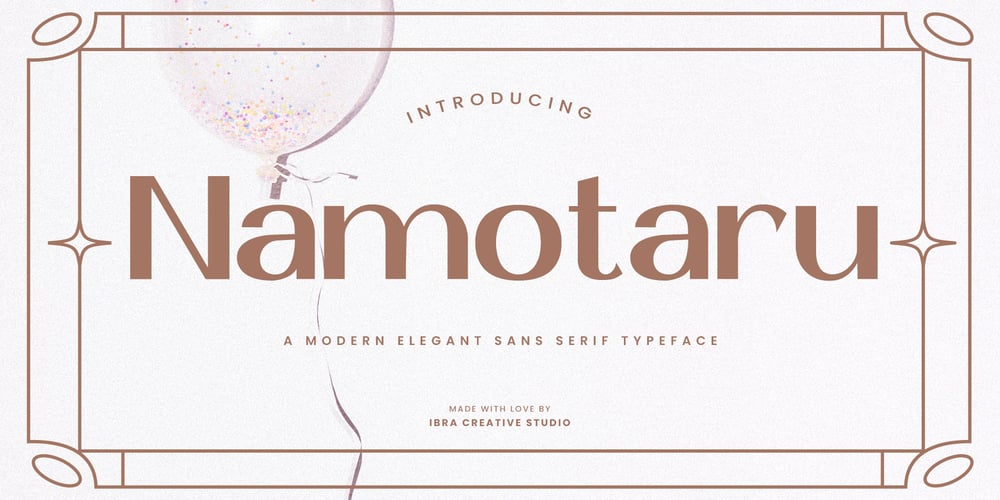
Namotaru Font Family was designed by Roisatul Azizah and published by IbraCreative. Namotaru contains 1 styles and family package options. Namotaru – A Modern Elegant Sans Serif TypefaceNamotaru, a modern elegant sans serif typeface, epitomizes sophistication with its sleek lines and refined appearance. Each letter in Namotaru exudes a sense of contemporary grace, making it ideal for projects that require a balance of professionalism and style. With its clean and minimalist design, this typeface adds a touch of refinement to any layout, whether it’s for branding, editorial design, or digital interfaces. The subtle curves and precise geometric shapes of Namotaru create a harmonious visual rhythm, ensuring readability and visual appeal in equal measure. Versatile and timeless, Namotaru is the epitome of modern elegance in typography, effortlessly elevating any design with its understated yet impactful presence.Namotaru is perfect for branding projects, logo, wedding designs, social media posts, advertisements, product packaging, product designs, label, photography, watermark, invitation, stationery, game, fashion and any projects.Fonts include multilingual support for; Afrikaans, Albanian, Czech, Danish, Dutch, English, Estonian, Finnish, French, German, Hungarian, Italian, Latvian, Lithuanian, Norwegian, Polish, Portuguese, Slovak, Slovenian, Spanish, Swedish.